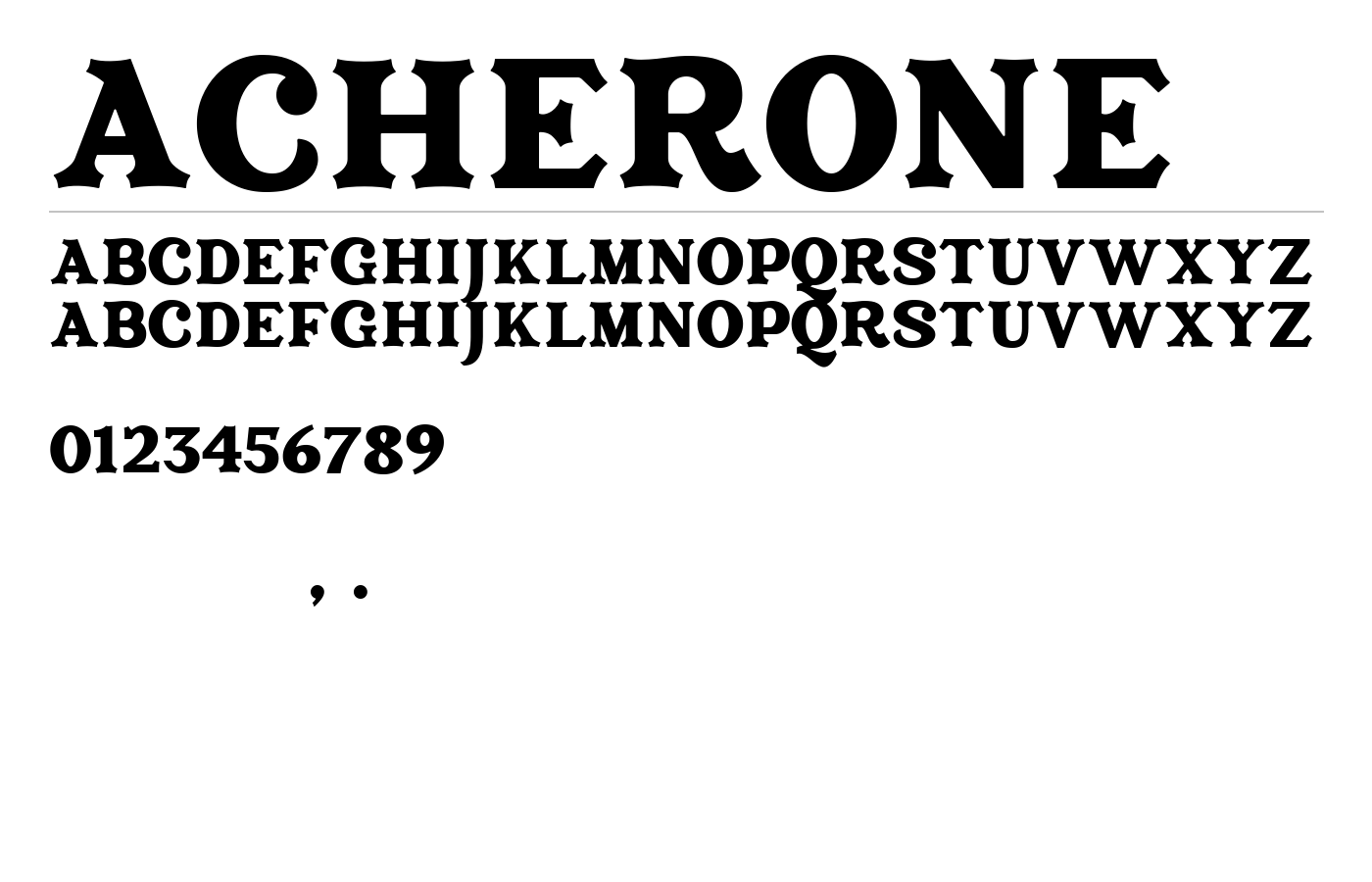
Acherone is a bold slab serif font with thick, blocky serifs and a strong, sturdy presence. Its high contrast and sharply defined edges give it a vintage, authoritative feel that works well for headlines, posters, and branding that needs a powerful, classic touch. This font is ideal for projects wanting to convey strength and timelessness with a distinctive, memorable style.
Acherone Font